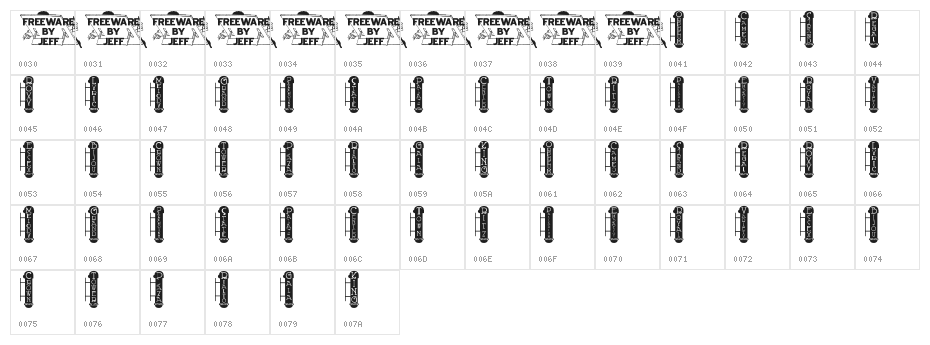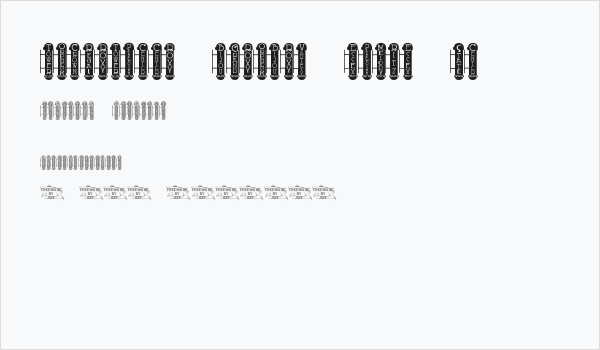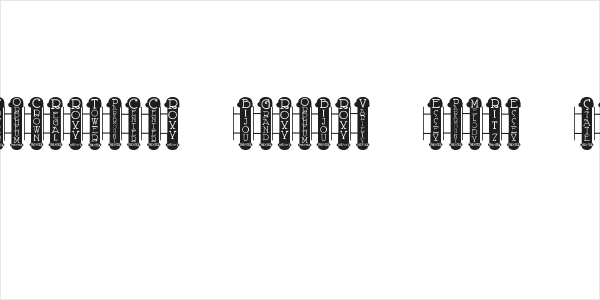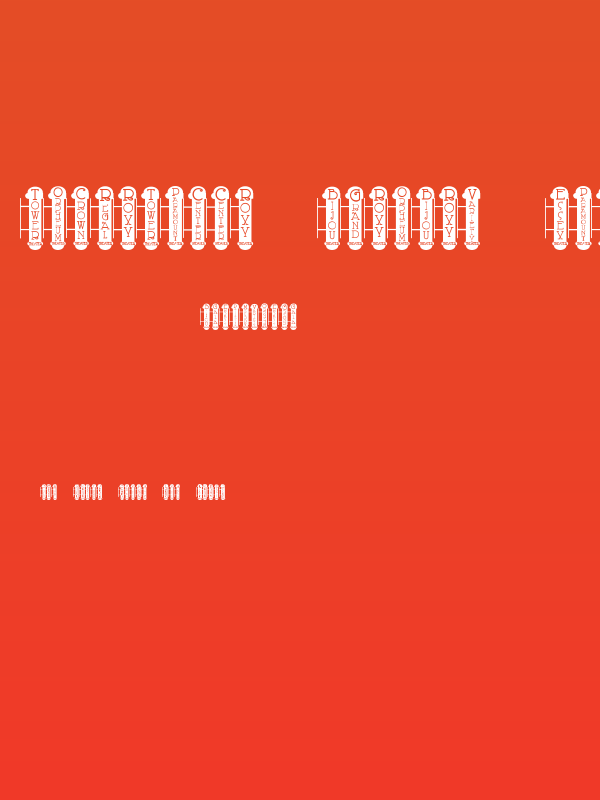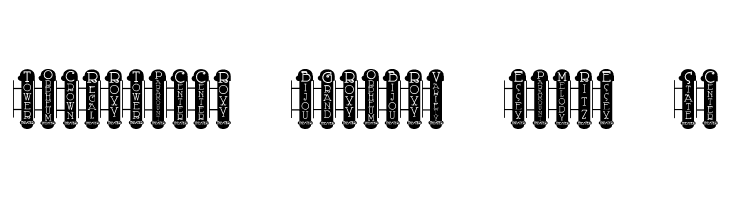
Vaudeville Theater Signs JL Font
Vaudeville Theater Signs JL Description
This font is a decorative display style that evokes the nostalgic charm of vintage theater signs. Each character is encased in a vertical rectangular frame, reminiscent of marquee lights from classic vaudeville theaters. The letters are bold and capitalized, with a distinct Art Deco influence, featuring sharp angles and geometric shapes. The font is designed to capture attention with its theatrical flair, making it ideal for projects that require a retro or nostalgic aesthetic. The unique framing of each letter adds an extra layer of visual interest, making it stand out in any design.
| Overall Style | Vintage |
| Use Case | Headlines, Logos, Signage |
| Proposed Projects | Ideal for vintage-themed posters, theater event promotions, retro branding, and signage. |